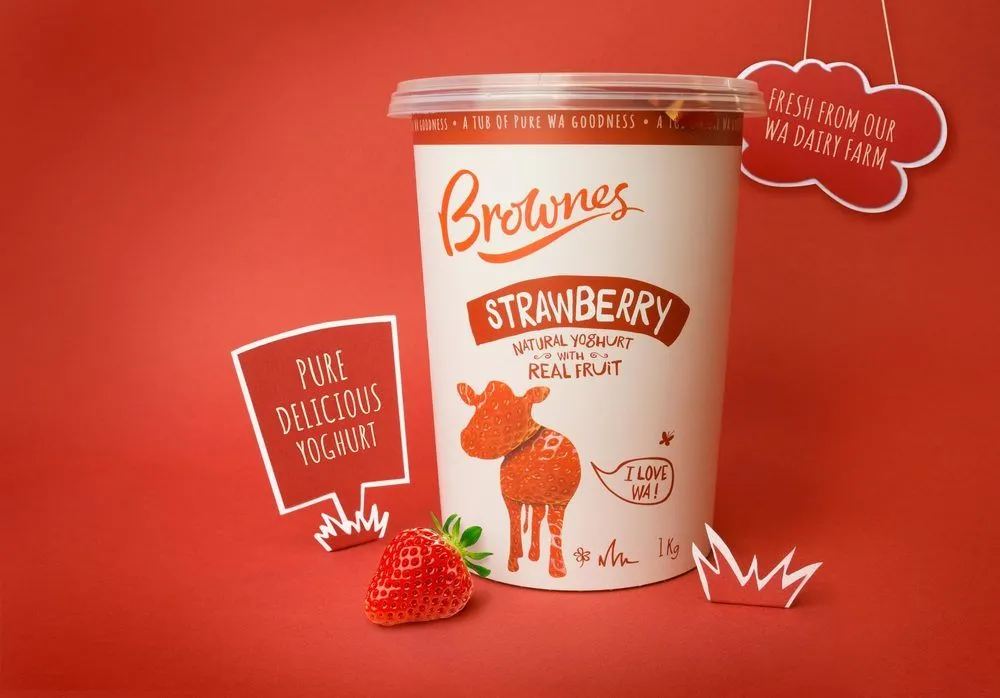
Fonts in Use: Daft Brush
Brownes Natural Yoghurt
A series of hand-written fonts and doodles quietly adorn the pack, giving a really authentic feel to the aesthetic. Additional hand-drawn elements like butterflies, daisies, speech bubbles, farm signs and grass, drive home provenance and realness.
Designed by Boxer & Co.